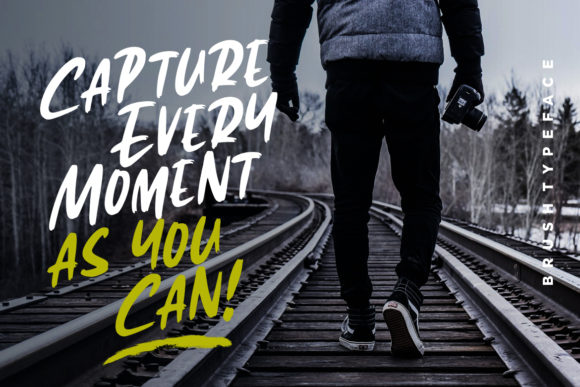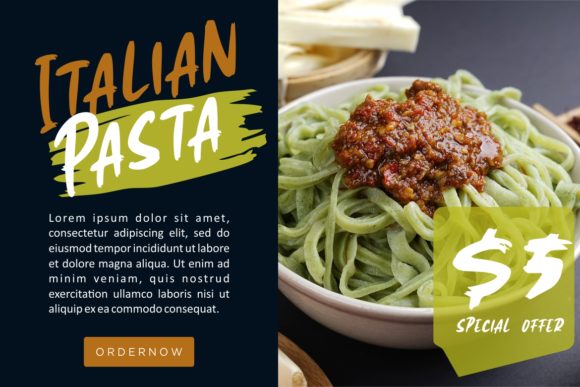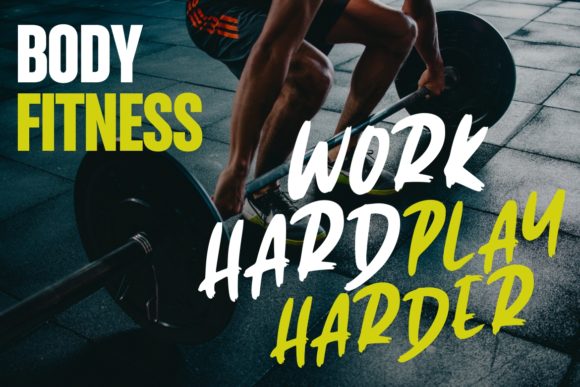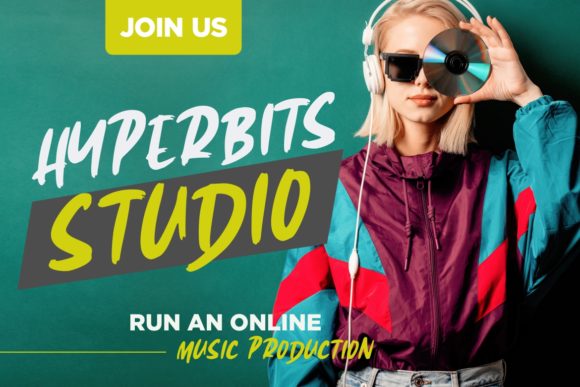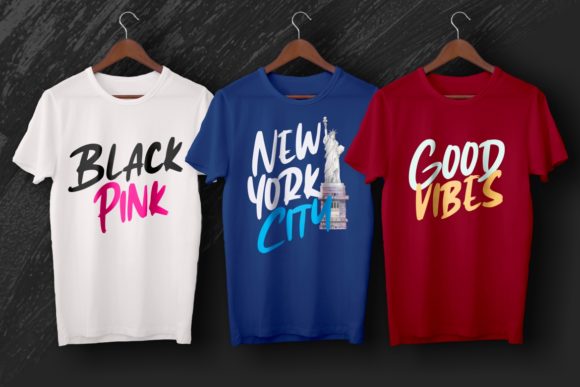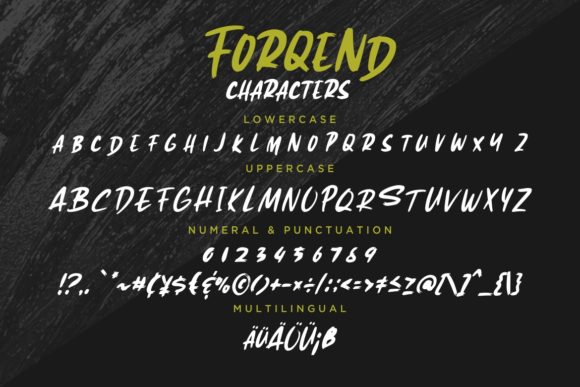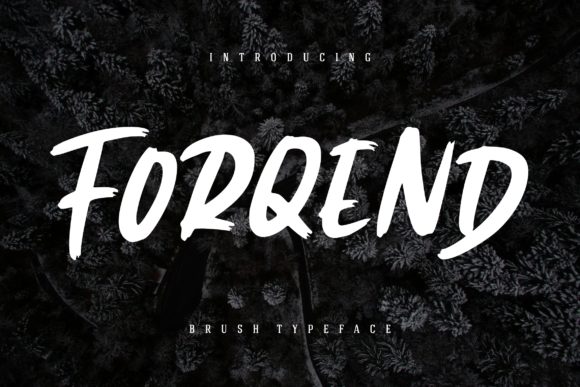
Introducing Forqend Font: The Classic Display Font with a Cool Twist
Are you tired of using the same old fonts in your design projects? Look no further than Forqend Font, a classic display font with a unique twist that’s sure to make your designs stand out. In this article, we’ll take a closer look at Forqend Font, its features, and how you can use it to elevate your design game.
What is Forqend Font?
Forqend Font is a display font that’s inspired by traditional typography, but with a modern twist. Its unique style is characterized by bold lines, elegant curves, and a touch of sophistication. Whether you’re working on a branding project, a website design, or a craft project, Forqend Font is the perfect choice to add a touch of class and personality.
Key Features of Forqend Font
- Unique Style: Forqend Font boasts a distinctive style that’s both classic and modern. Its bold lines and elegant curves make it perfect for headlines, titles, and other display text.
- High Versatility: Forqend Font is highly versatile and can be used in a wide range of design projects, from branding and advertising to web design and crafting.
- Scalability: Forqend Font is highly scalable, making it perfect for use in large and small designs alike.
How to Use Forqend Font in Your Design Projects
Forqend Font is perfect for designers and crafters who want to add a touch of sophistication and personality to their projects. Here are some ideas on how to use Forqend Font:
- Branding and Advertising: Use Forqend Font to create eye-catching logos, business cards, and advertising materials that will help your brand stand out.
- Web Design: Add Forqend Font to your website design to create stunning headlines, titles, and other display text that will grab visitors’ attention.
- Crafting and DIY Projects: Use Forqend Font to add a personal touch to your crafting and DIY projects, such as handmade cards, invitations, and gift tags.
Tips and Tricks for Getting the Most Out of Forqend Font
Here are some tips and tricks to help you get the most out of Forqend Font:
- Experiment with Different Sizes and Colors: Forqend Font looks great in a variety of sizes and colors. Experiment with different combinations to find the one that works best for your project.
- Pair it with Other Fonts: Forqend Font pairs well with other fonts, including serif and sans-serif fonts. Try pairing it with a simple font to create a striking contrast.
- Use it for Headlines and Titles: Forqend Font is perfect for headlines and titles. Use it to create eye-catching text that will grab attention.
Forqend Font is a classic display font with a cool twist that’s sure to elevate your design projects. Its unique style, high versatility, and ease of use make it perfect for designers and crafters who want to add a touch of sophistication and personality to their work. Whether you’re working on a branding project, a website design, or a craft project, Forqend Font is the perfect choice. So why not give it a try and see the difference it can make?
Get Inspired by Forqend Font
Take a look at some of the amazing designs created with Forqend Font and get inspired to create your own stunning designs. From elegant branding materials to eye-catching website designs, Forqend Font is the perfect choice for any design project.